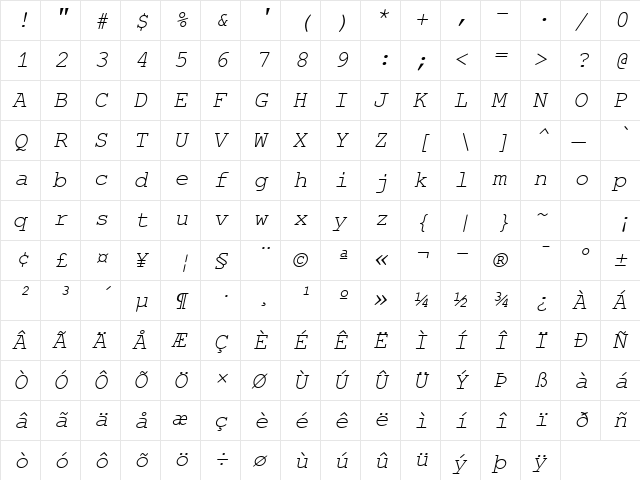
FreeMono Oblique Font Preview
FreeMono Oblique
FreeMono Oblique Font Details
| Foundry | GNU |
Design Context for FreeMono Typeface
FreeMono brings the precise, column-aligned rhythm of monospaced typography to designs that value technical clarity and systematic order. The dynamic lean of this cut emphasises speed and emphasis in any layout.